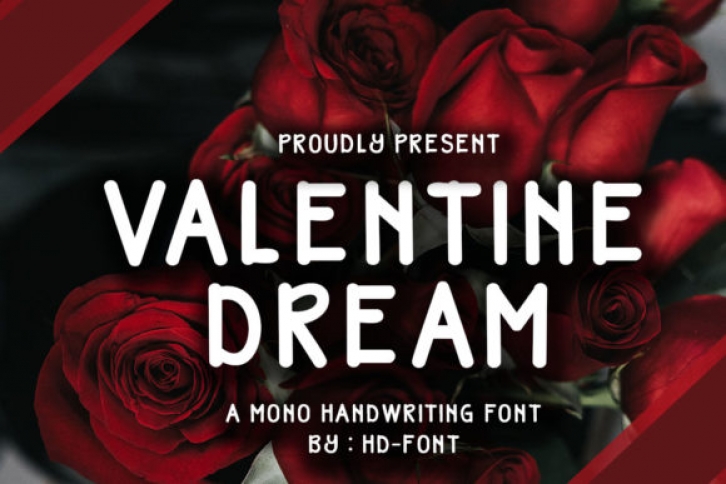
Valentine Dream is a simple and neat display font. It can be used for a variety of designs, both formal and informal. Have fun with this beautiful font and explore its endless variations.